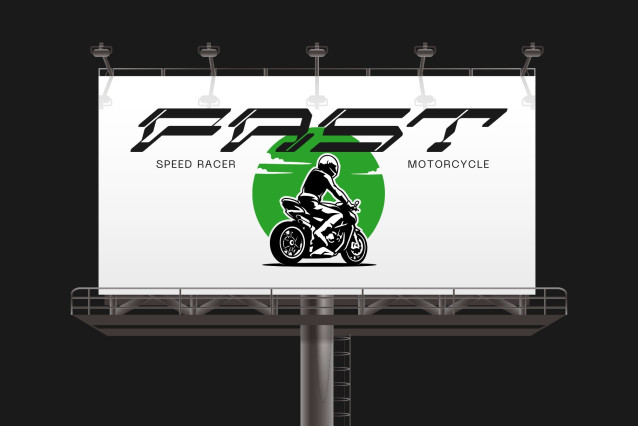
Cuba Technology Font
Cuba Technology Font is an advanced techno font designed for bold logos and bold headlines. The font combines sharp edges with a futuristic style to create a strong visual identity. Ideal for technology brands, sci-fi themes, and digital media, Cuba Technology has a sleek, dynamic look. Its modern structure and dynamic style make it perfect for standing out in contemporary and innovative designs.